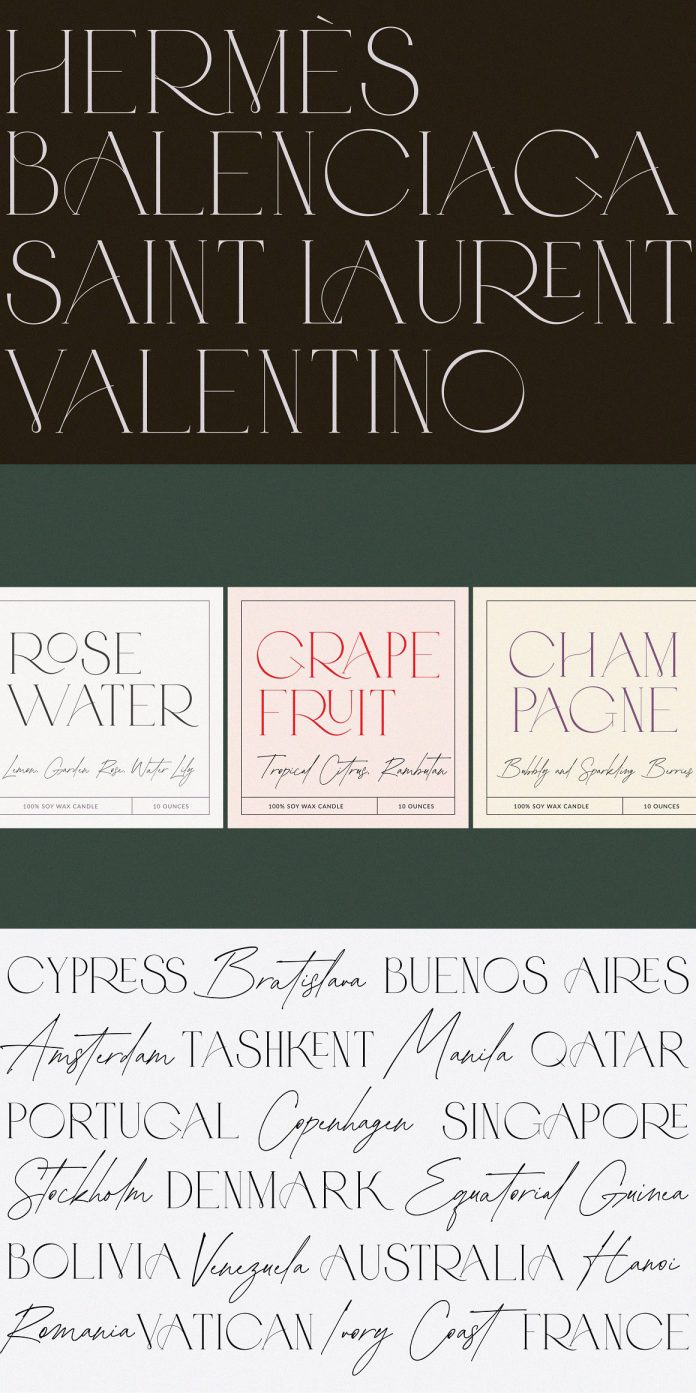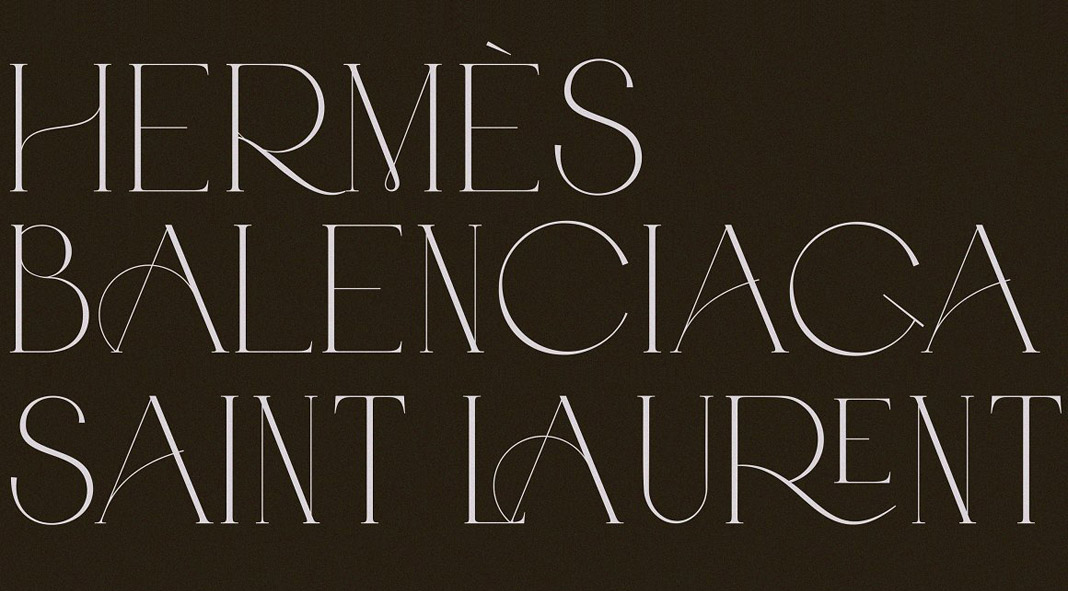
ABRAMO, a modern font duo inspired by classic typeface design.
Gulya Ju, a graphic and typeface designer has created ABRAMO, a masterfully executed font duo consisting of an all-caps serif as well as a stylish script. Both fonts complement each other perfectly in a great variety of typographic work including logo designs, social media posts, invitations, just to name a few.
Both styles can be considered modern interpretations of classic typeface designs. This combination of old and new, elegance and functionality results in fantastic flexibility. ABRAMO is truly an eye-catching font duo for plenty of projects. To learn more, just click on one of the following links or have a look at the images below.